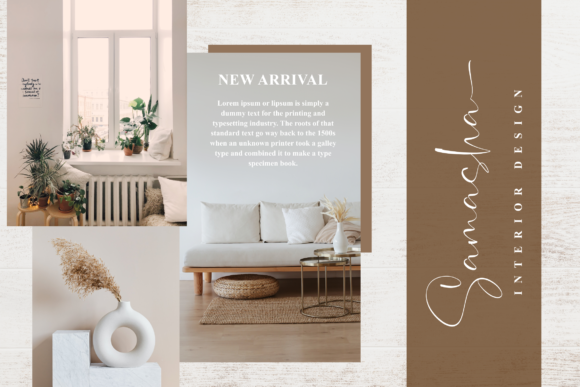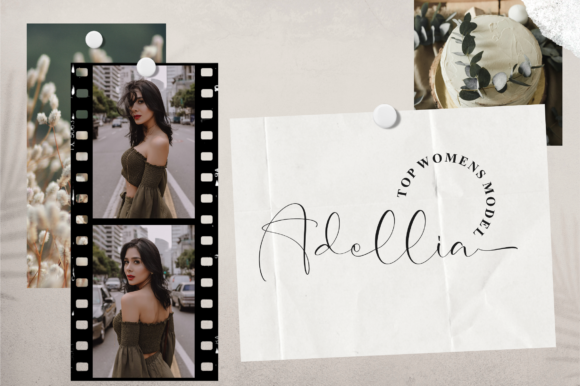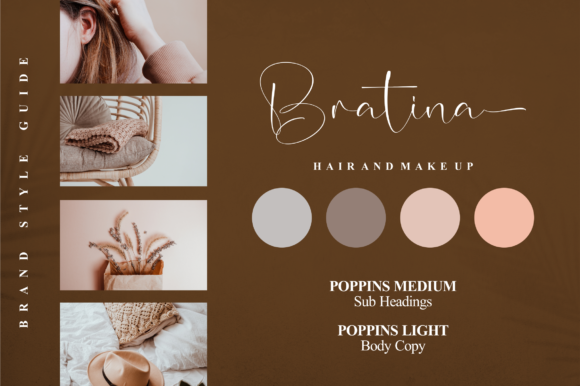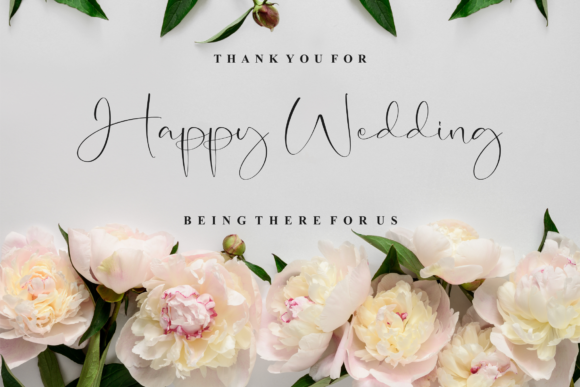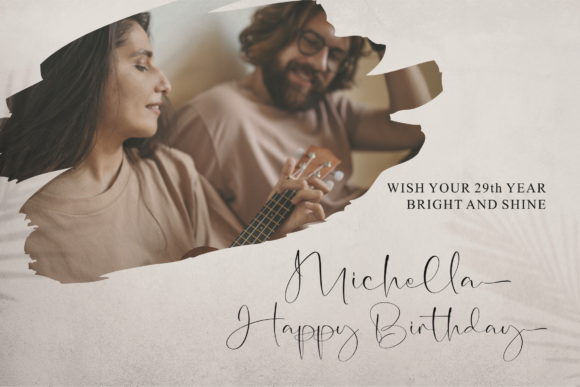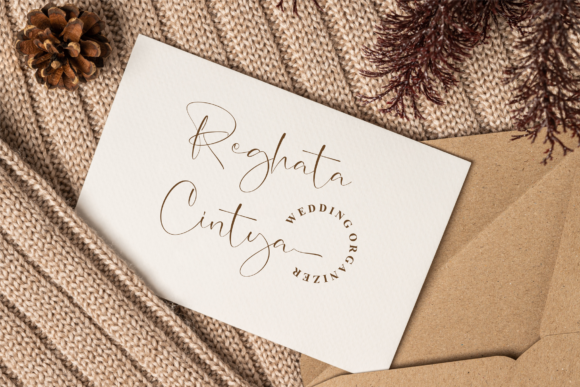
Introduction to Michella Calvert Font
Michella Calvert is a fashionable and delicate script font.
It is suitable for any projects such as: logos, branding projects, label, photography, watermark, special events, and all your other lovely projects that need a beautiful script taste This font is PUA encoded which means you can access all of the glyphs and swashes with ease.